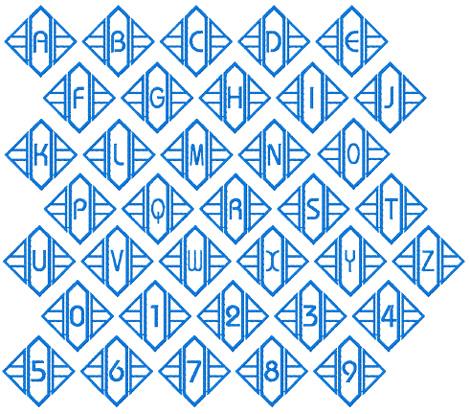
Internet Stitch is happy to present Diamond Tree machine embroidery font which has This monogram machine embroidery font showcases the letter 'A' in a diamond-like design, perfect for personalizing jackets or bags. Available in PES, DST, and 11 other formats. included. If you would like to view more embroidery fonts and alphabets please search our embroidery fonts page.